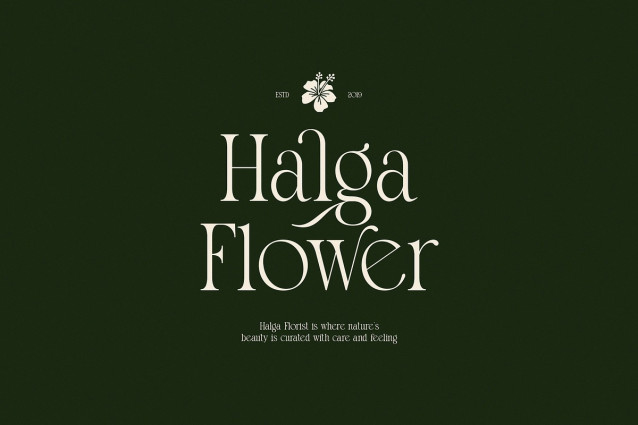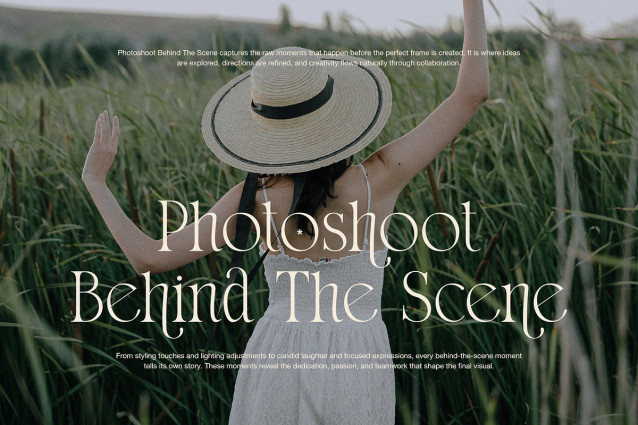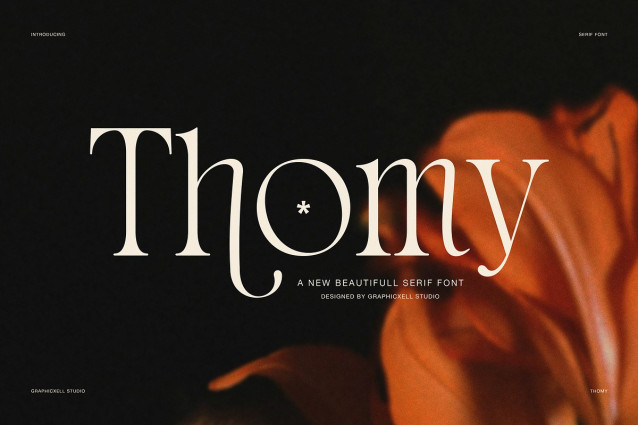
Thomy Font
Thomy Font is an elegant serif font created to express beauty, emotion, and refined character. Moreover, it blends classic serif structure with soft curves and graceful details, so every word feels warm and sophisticated. Because of this balance, designers can use Thomy for luxury branding, editorial layouts, and artistic storytelling.
In addition, Thomy offers expressive alternate characters that add flow and personality to lettering. Therefore, logos, headlines, and brand names feel more personal and handcrafted. At the same time, the main letterforms stay clean and readable, even in longer text. As a result, this font works well for both display typography and short supporting copy.
Furthermore, Thomy fits many creative fields. For example, it works beautifully for florists, jewelry brands, fashion editorials, and lifestyle magazines. It also performs well for talent agencies, beauty campaigns, quote designs, and premium packaging. Since the letterforms feel calm and elegant, layouts look refined without appearing heavy.